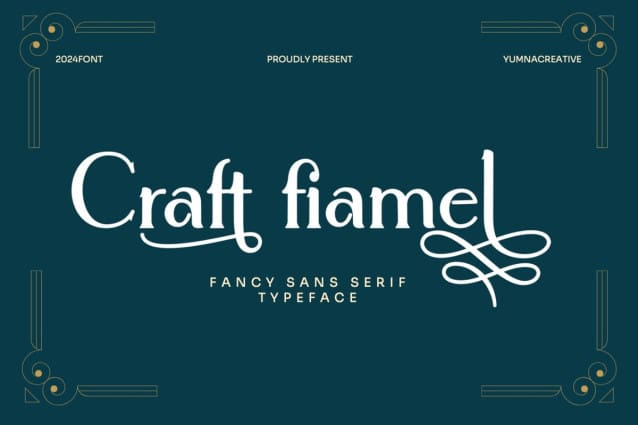
Craft Fiamel Font
Craft Fiamel Font is perfect for stickers, retro projects, craft projects, shirts, svg designs, procreate designs, branding, blogs, logos, invitations and more!